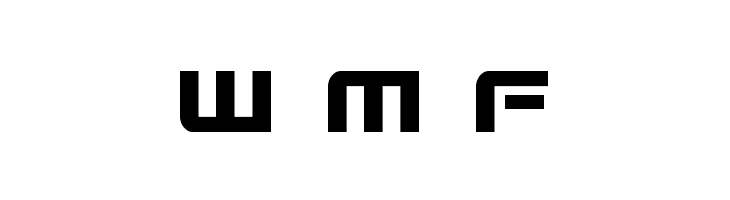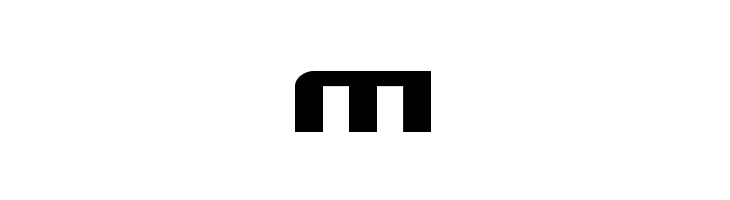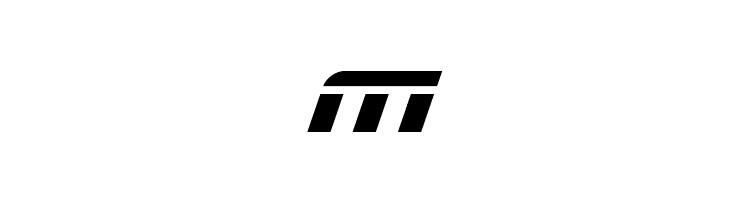
A bold, futuristic font with a geometric, three-dimensional style.
A bold, italic, futuristic font with a double-layer outline and geometric shapes.
A bold, futuristic font with a geometric and angular design.
A bold, italicized font with a futuristic and dynamic design.
A bold, geometric font with a futuristic and industrial design.
A bold, condensed, and italicized font with a futuristic and dynamic design.
A bold, geometric font with a futuristic and industrial design.
A bold, expanded, and italic futuristic font with a dynamic and modern style.
A futuristic, gradient-lined font with a bold, geometric style.
A futuristic, italicized font with gradient stripes and dynamic movement.
A bold, futuristic font with a halftone effect and geometric design.
A bold, futuristic italic font with a halftone effect and dynamic style.
A bold, italicized font with a futuristic and angular design.
A bold, futuristic font with angular, geometric letterforms.
A futuristic, angular italic font with a dynamic and high-tech aesthetic.
A bold, futuristic font with a leftward slant and angular design.
A bold, geometric outline font with a futuristic and industrial aesthetic.
A futuristic, italicized outline font with bold, geometric characters.
A bold, futuristic font with a semi-italic slant and angular design.
A bold, italic, and futuristic font with angular, geometric characters.
A classic serif font with a modern touch, combining elegance and readability.
A bold, hand-drawn font with an expressive, graffiti-like style.
A traditional Blackletter font with sharp, angular lines and a dense appearance.
Ornate, high-contrast script with decorative swashes.
A decorative, high-contrast script font with ornate swashes.
A bold, expressive brush-style font with a dynamic, hand-painted look.
A bold serif font with a hand-drawn, sketch-like texture.
A bold, modern sans-serif font with clean lines and a slightly condensed style.
A bold, modern sans-serif font with clean lines and excellent readability.
A bold and italic font with a modern, dynamic slant.
A bold, oblique font with a modern and dynamic appearance.
A modern, italic font with clean lines and balanced proportions.
A modern, oblique font with clean lines and a slightly condensed style.
A modern, monospaced font ideal for coding with clear, consistent strokes.